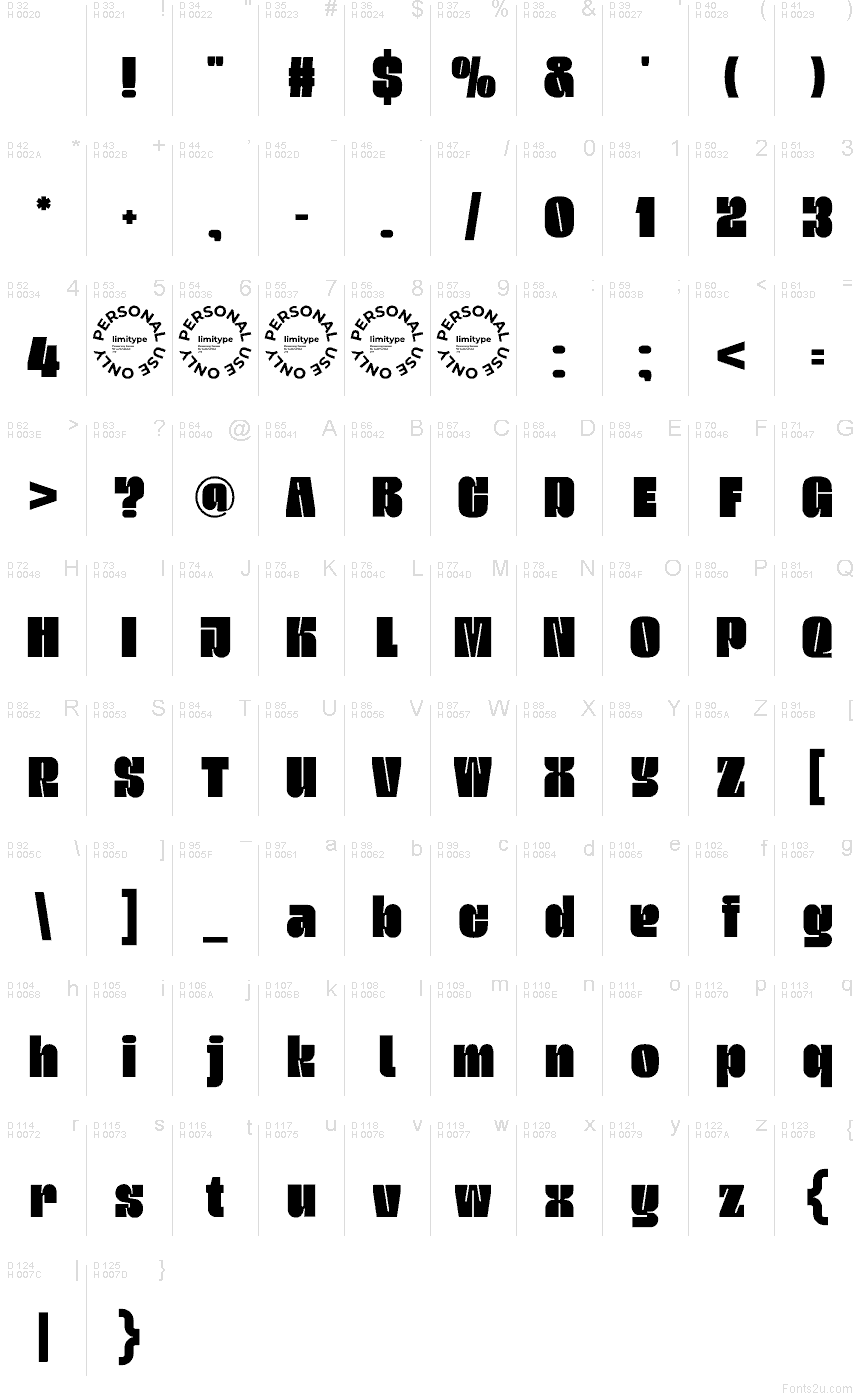
Kunatic Demo
Kunatic font by Limitype is a free decorative display typeface that hits with thick, blocky shapes sliced by a sharp vertical cut, like light breaking through a monolith. The chunky forms feel retro-futuristic—part arcade cabinet, part sci-fi title card—while the tight spacing packs your words into a bold, unified slab of ink. It’s the kind of letterform that doesn’t just sit on the page; it stomps in and takes over.
Using Kunatic, headlines gain a heavy, industrial rhythm that’s great for posters, gaming and esports branding, album covers, streetwear logos, packaging, and bold social media graphics. This free font thrives at large sizes where its sliced geometry can really show off. Pair it with a clean, neutral sans serif for body text to keep layouts readable while Kunatic handles the attitude up top.
Kunatic font by Limitype is a free decorative display typeface that hits with thick, blocky shapes sliced by a sharp vertical cut, like light breaking through a monolith. The chunky forms feel retro-futuristic—part arcade cabinet, part sci-fi title card—while the tight spacing packs your words into a bold, unified slab of ink. It’s the kind of letterform that doesn’t just sit on the page; it stomps in and takes over.
Using Kunatic, headlines gain a heavy, industrial rhythm that’s great for posters, gaming and esports branding, album covers, streetwear logos, packaging, and bold social media graphics. This free font thrives at large sizes where its sliced geometry can really show off. Pair it with a clean, neutral sans serif for body text to keep layouts readable while Kunatic handles the attitude up top.